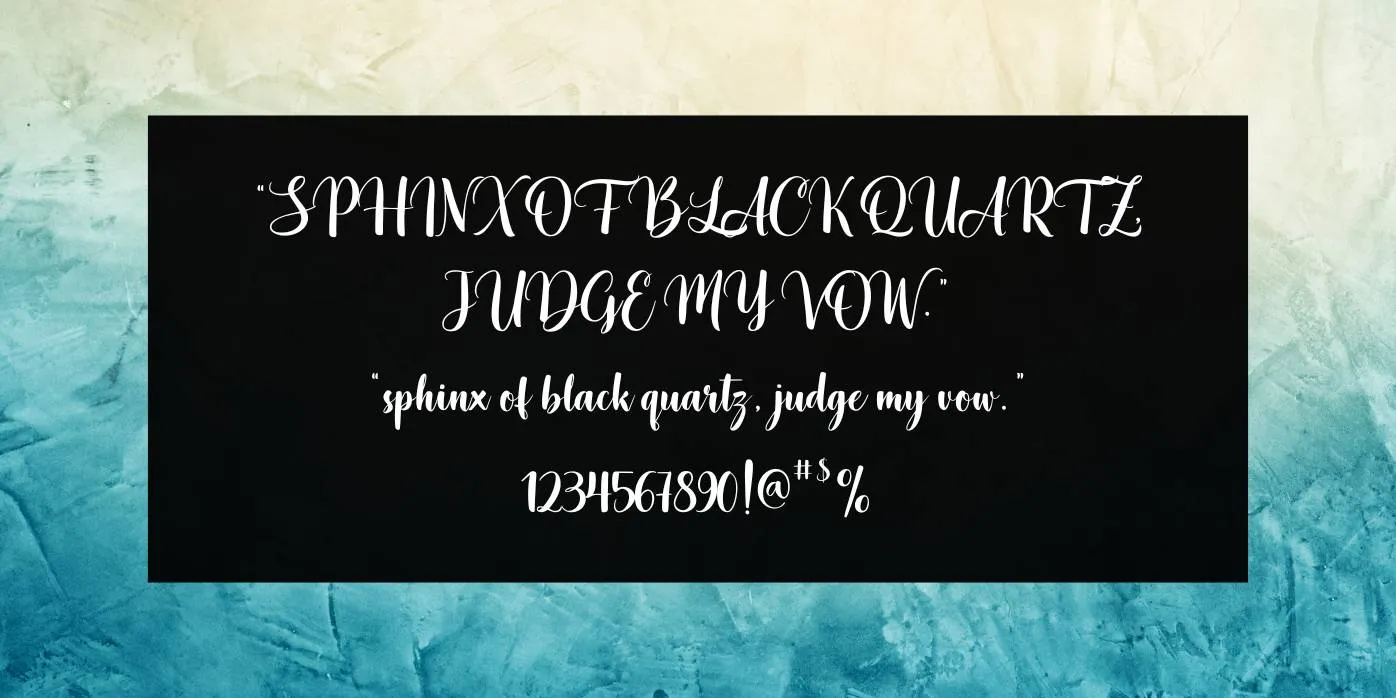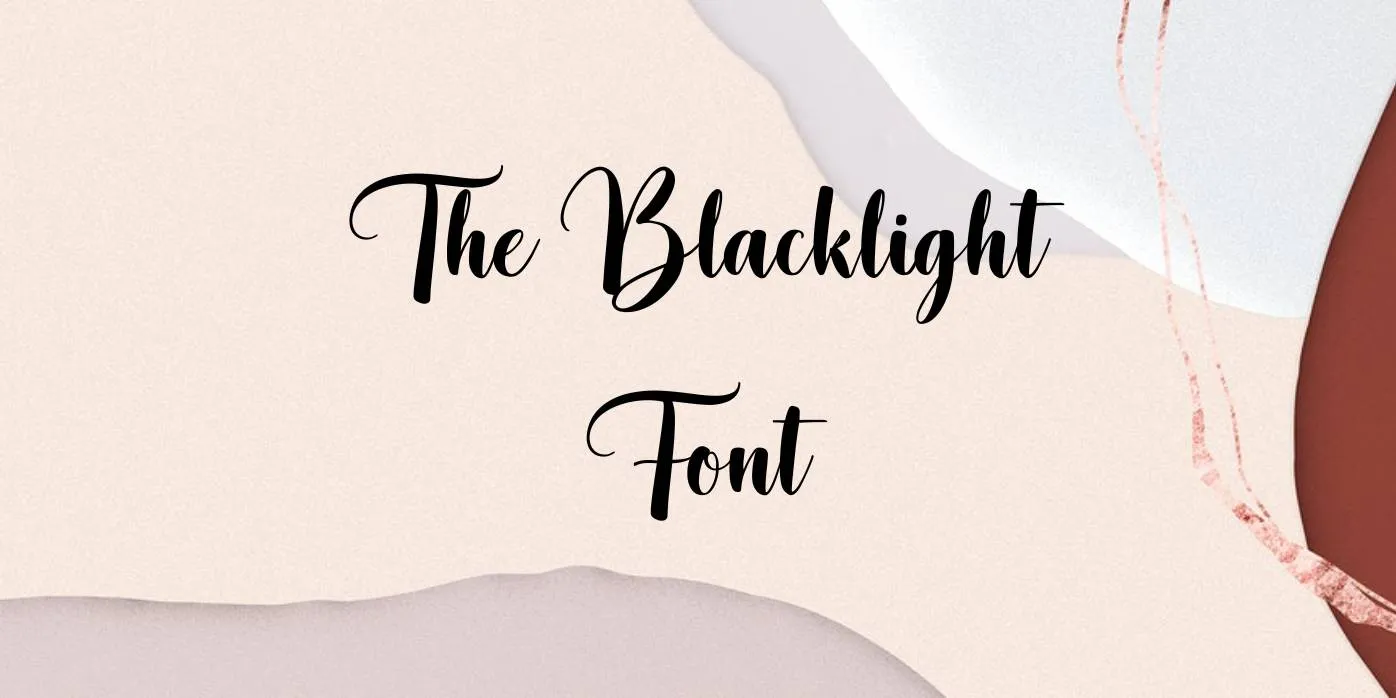
Blacklight Font
Let’s talk about a very interesting script typeface Blacklight font. This font is designed by Cat.B. It has different features that can be used to design many modern calligraphy projects as well. It contains 229 characters, 194 glyphs, and 800 units per Em.
Usage This font can be used to design many different projects as it has symbols, characters, punctuation, small letters, capital letters, and special characters. You can make modern calligraphy with this font. It can be used to design wedding cards and other invitation cards. It can also be used to design headings with a very attractive look.
This font can also be used to make banners, posters, flyers, and brochures. You can also use this typeface for website and graphic designs by using different graphic applications like Adobe Photoshop, CSS, and other Illustrators. To make YouTube thumbnails and other social media posts it is a very good choice. For both print and digital media this font is a suitable choice.
Can I use Blacklight font for making logos? Yes, it will be the best choice for making logos for different brands and organizations. You can make other projects as well by using this font. What type of font Blacklight is?
This is a very beautiful script font and can be used to design many projects. It gives 70s-century vibes when you use it in your projects.